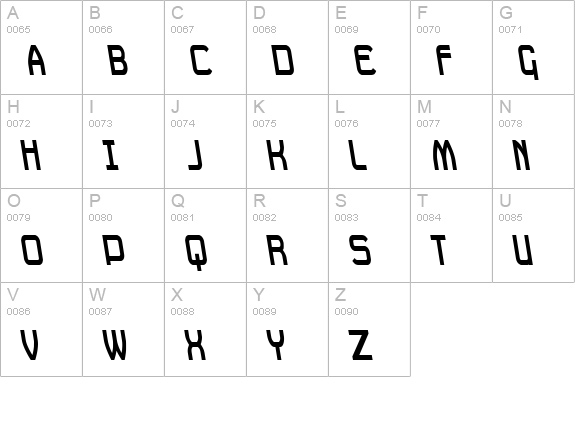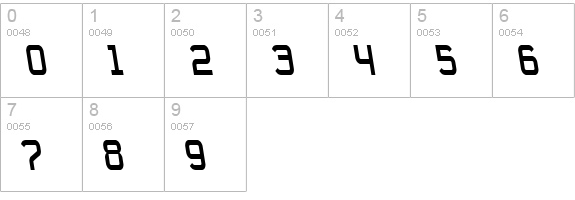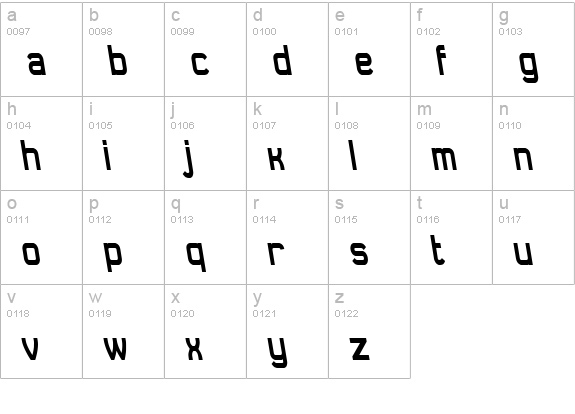
Daville Condensed Rev Slanted Font Details
Daville Condensed Rev Slanted is a distinctive, condensed-width variant in the Daville typeface family \xE2\x80\x94 well suited to design and typography projects.
Daville Condensed Rev Slanted is a sleek and modern font that exudes sophistication and style. With its unique slanted design and condensed shape, this font is perfect for adding a touch of elegance to any project. The sharp angles and clean lines of Daville Condensed Rev Slanted make it stand out from the crowd and give your work a contemporary edge. This versatile font is suitable for a wide range of design projects, from branding and advertising to editorial and web design. Its condensed form allows you to fit more text in a smaller space without sacrificing readability, making it ideal for headlines, titles, and other display purposes. The best part? Daville Condensed Rev Slanted is available for free download at FontsMarket.com. Whether you're a professional designer or a hobbyist looking to spruce up your projects, this font is a valuable addition to your toolkit. Don't miss out on the opportunity to elevate your designs with the modern and stylish Daville Condensed Rev Slanted font.